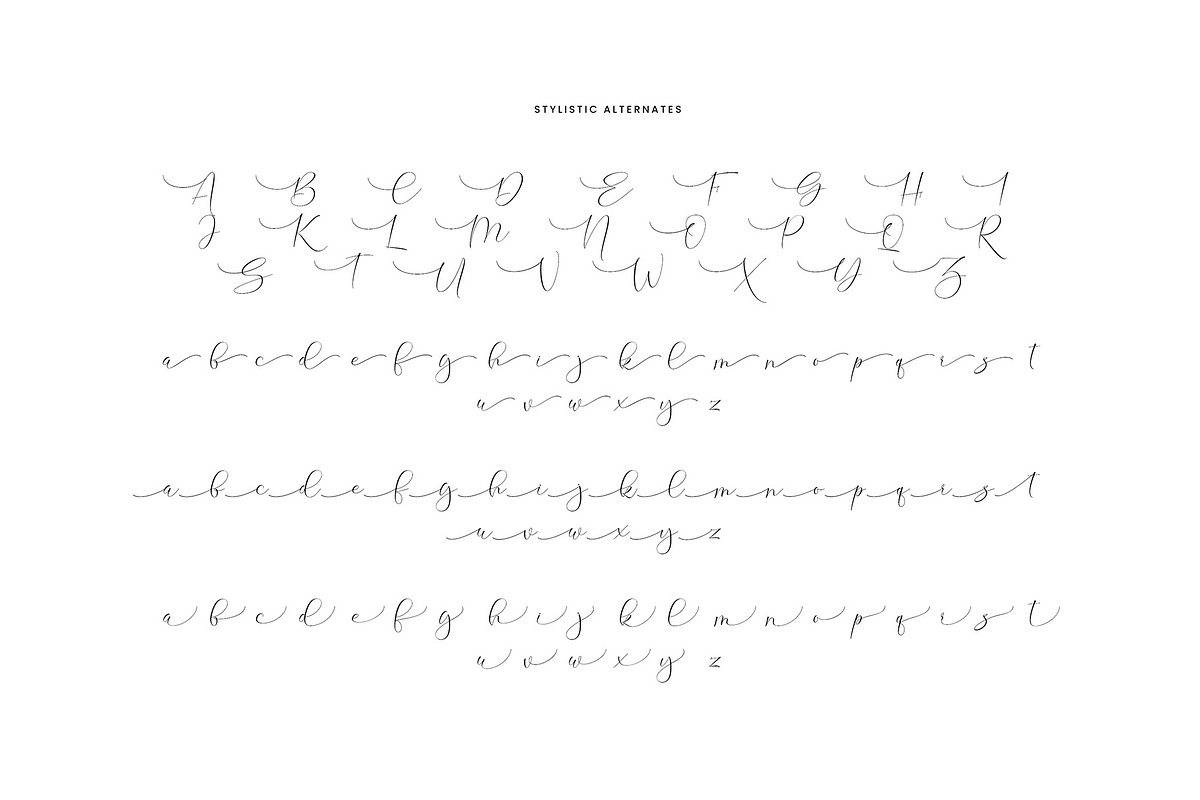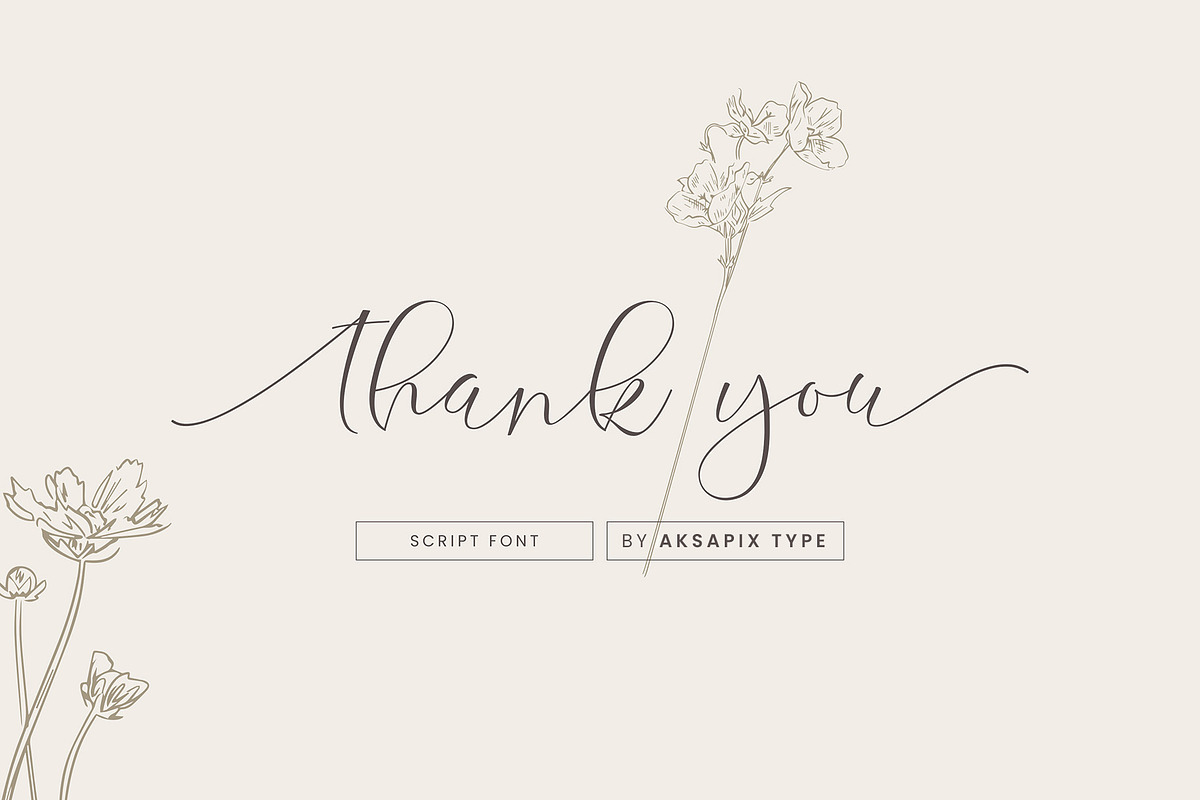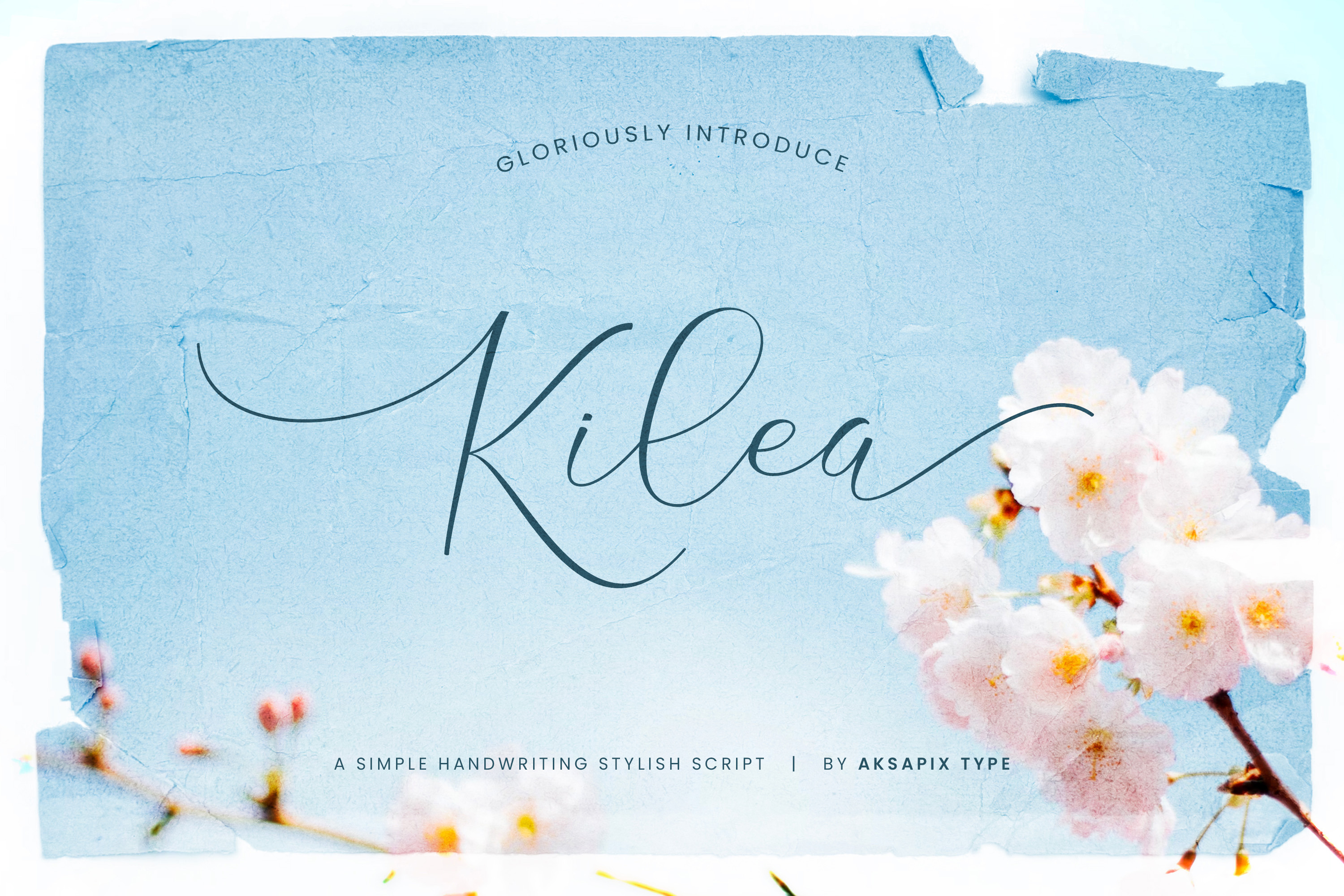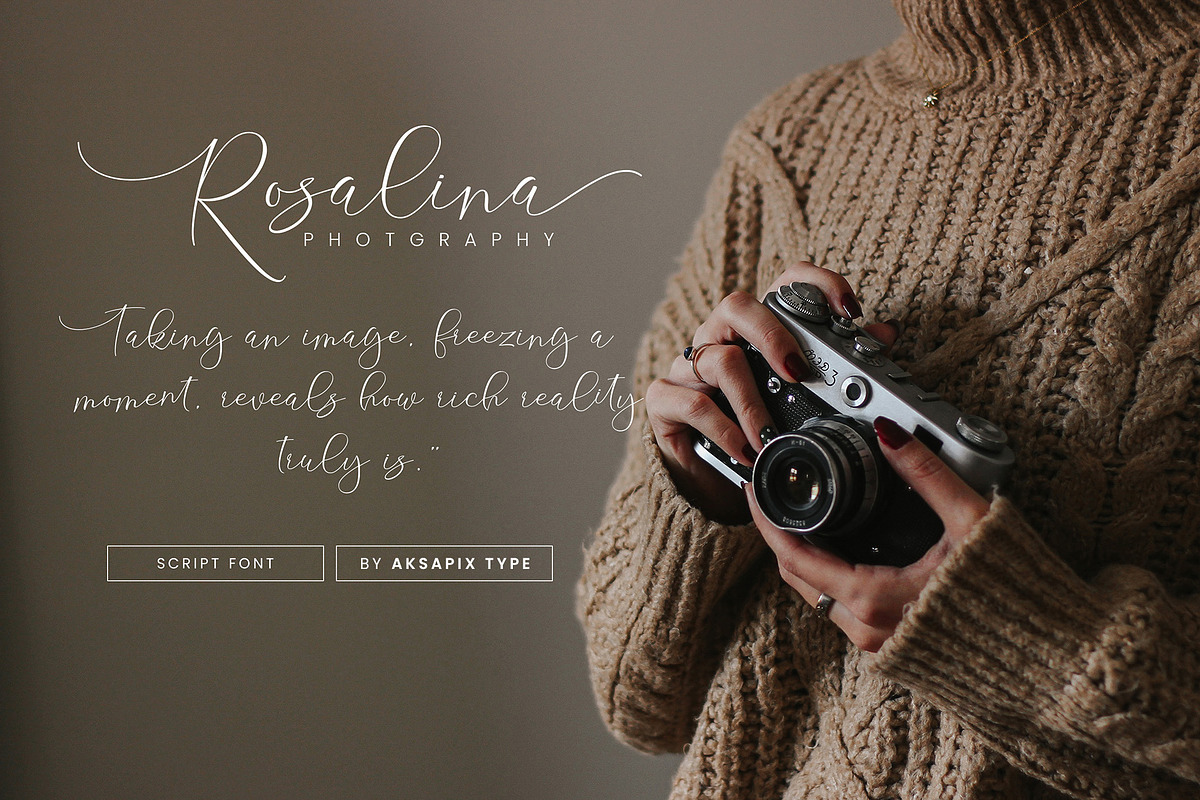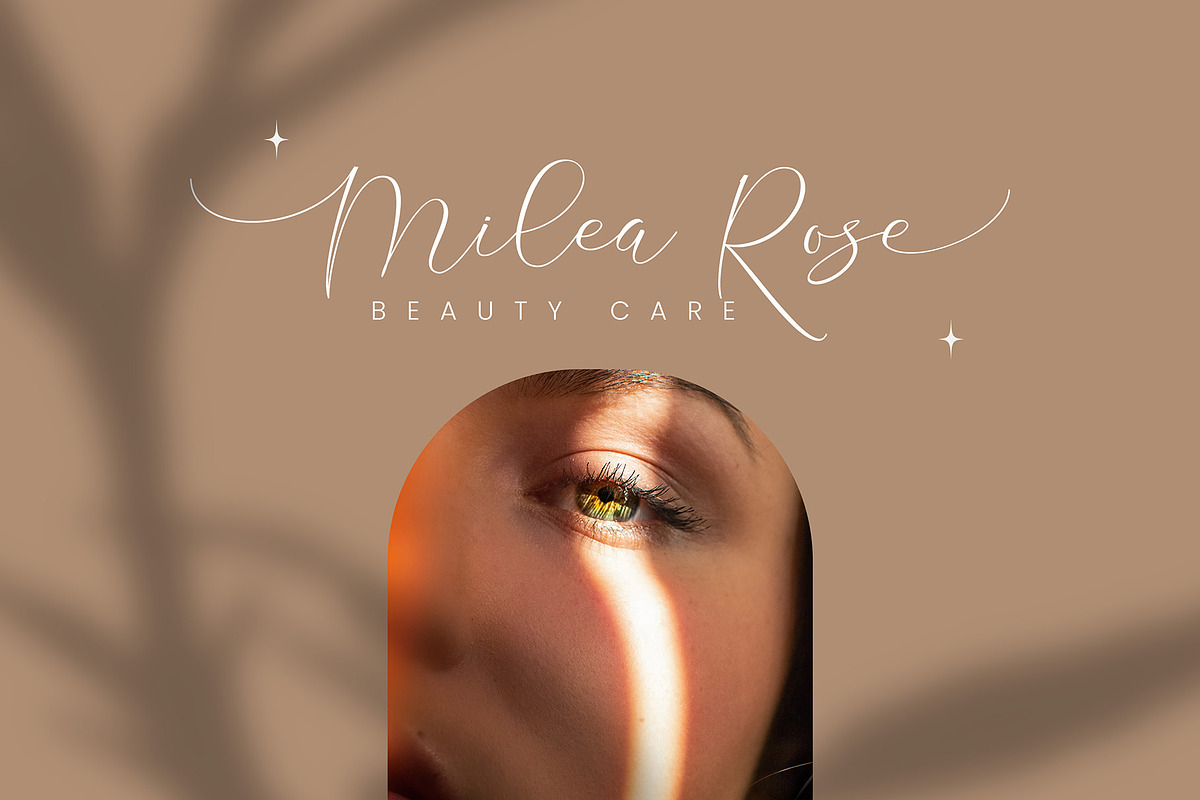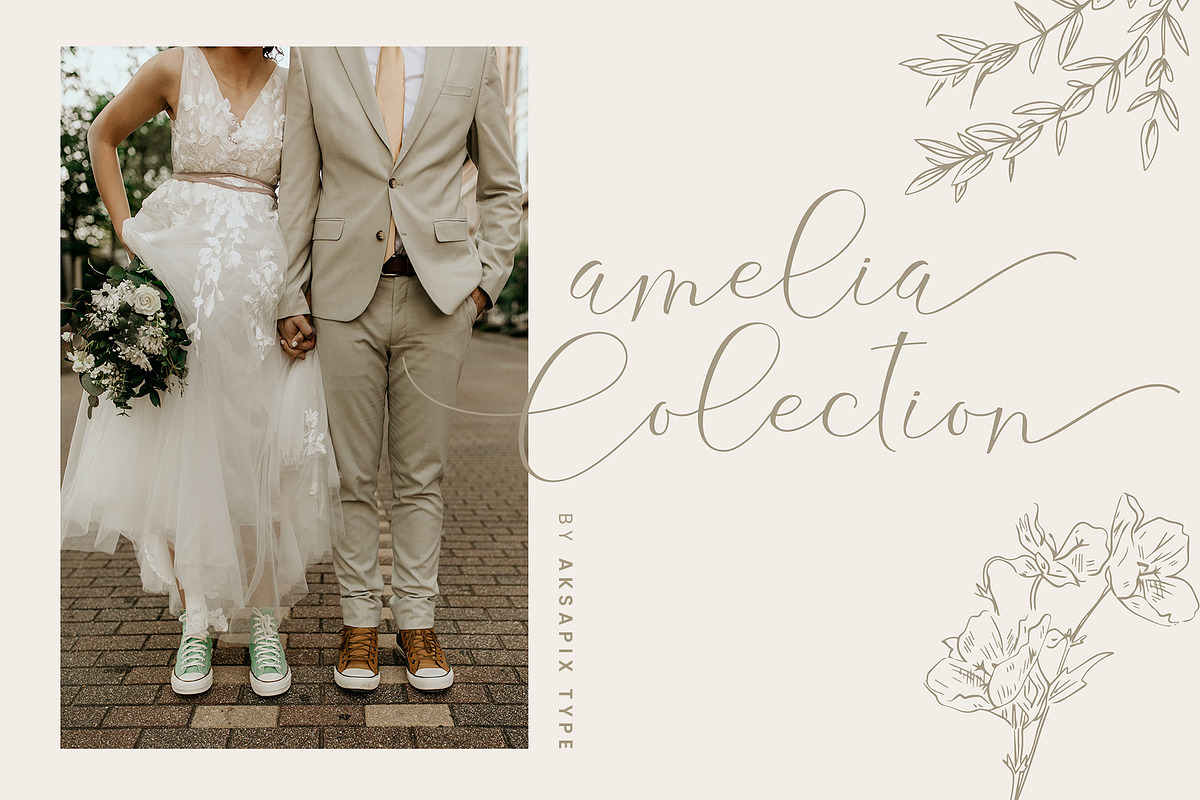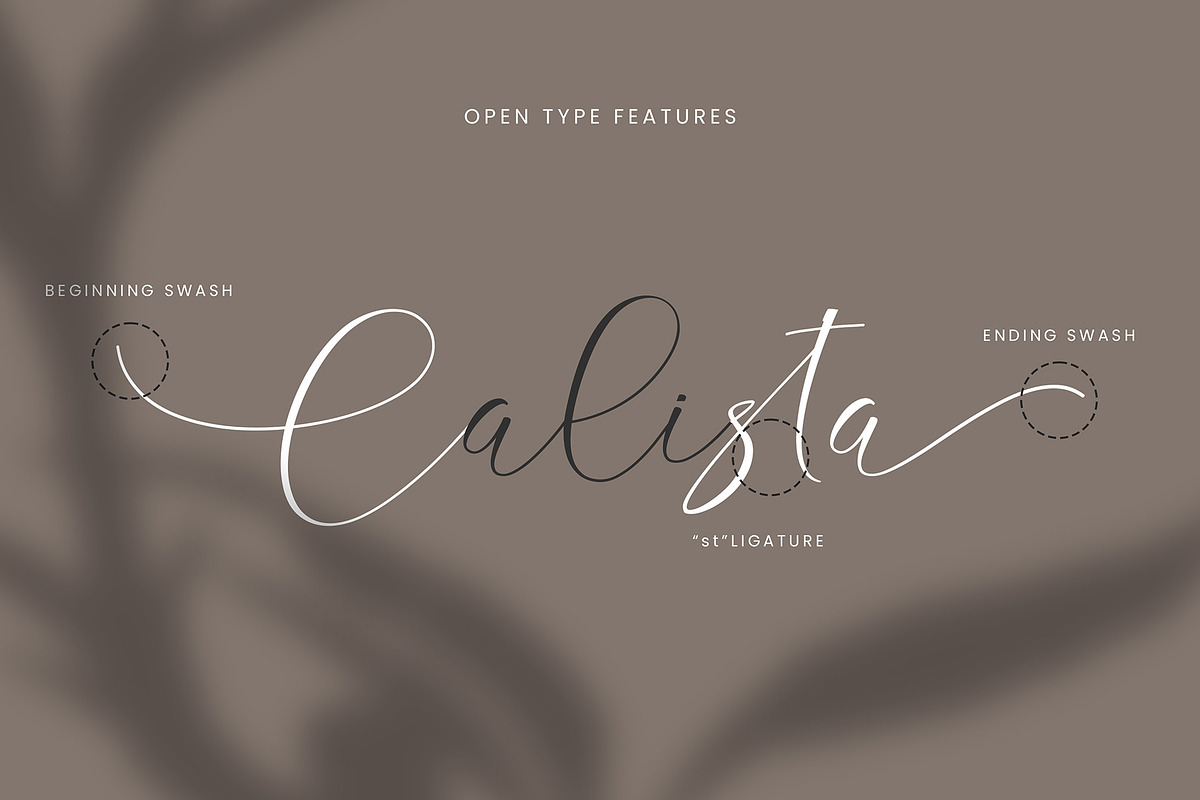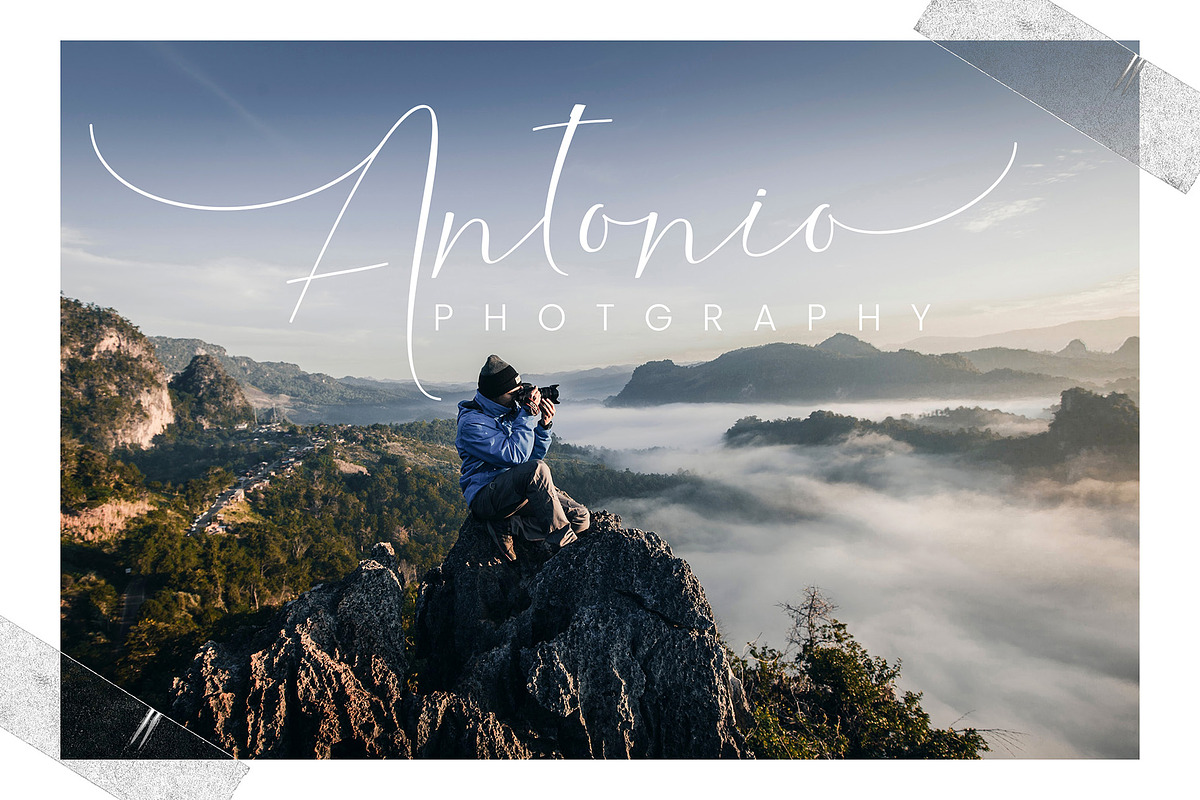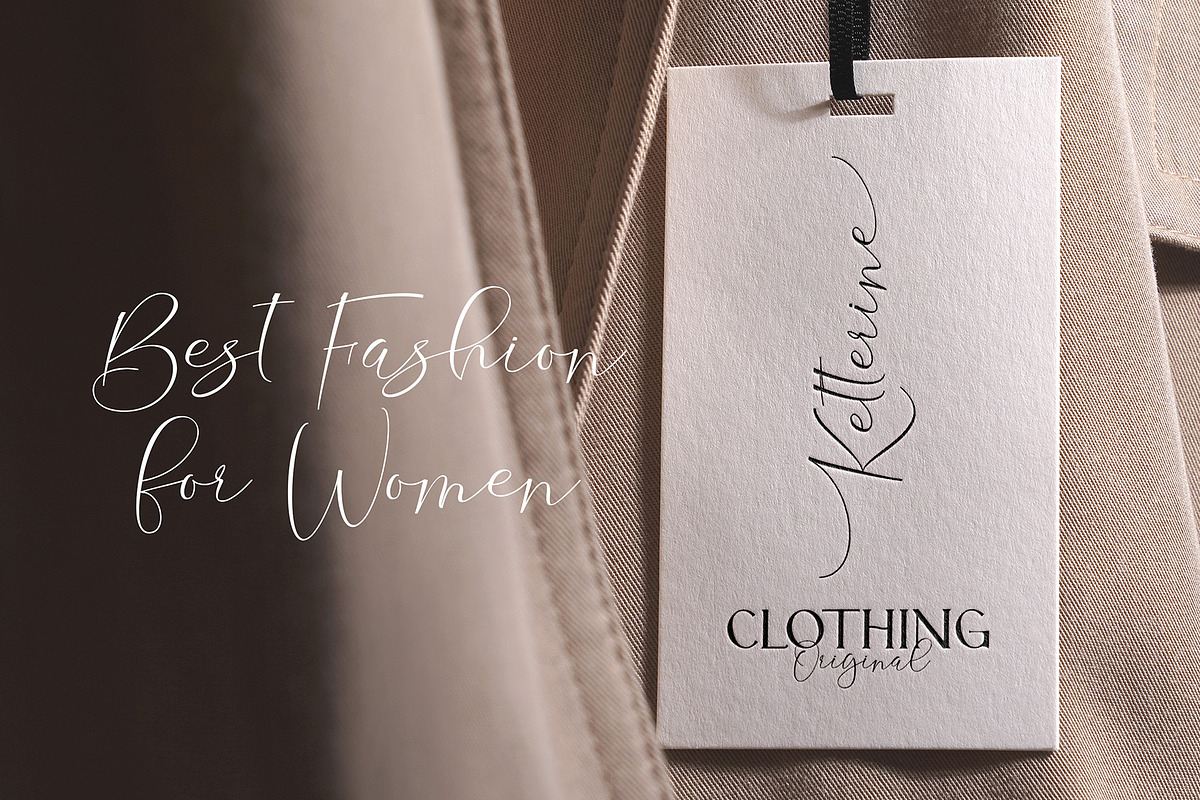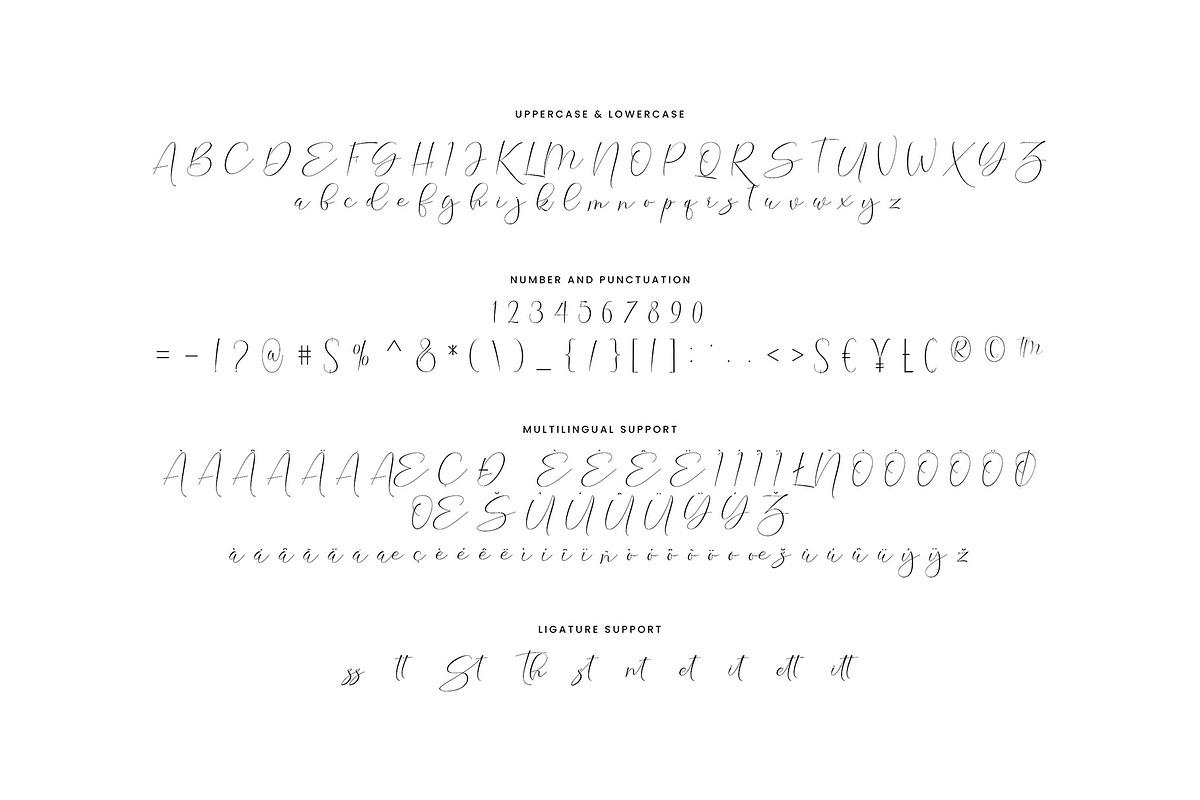
Kilea - Elegant Script Font
Kilea - Elegant Script Font is a refined and sophisticated typeface designed to enhance a variety of design projects. With its timeless elegance, this font is perfectly suited for a wide range of applications, including logos, wedding invitations, greeting cards, and social media designs. The font's inherent versatility allows it to seamlessly integrate into any creative endeavor, adding a touch of class and sophistication.
- Punctuation & Numbers
- Stylistic Alternates: Elevate your designs with the added flexibility of stylistic alternates. Kilea offers a range of alternate characters, allowing you to experiment with different letterforms and achieve a truly unique aesthetic.
- Multilingual Support: Kilea is equipped with comprehensive multilingual support, ensuring that your designs can cater to a diverse audience. Express your creativity across various languages with confidence.
- Ligatures: The inclusion of ligatures enhances the fluidity and visual appeal of your text, creating a seamless and harmonious look. Kilea's ligatures contribute to the font's overall elegance.
Embrace the timeless beauty of Kilea in your design projects, where every letter is a testament to grace and sophistication. With its stylistic alternates, multilingual support, and ligatures, Kilea offers a refined typographic solution for those seeking an elegant script font that transcends stylistic boundaries.